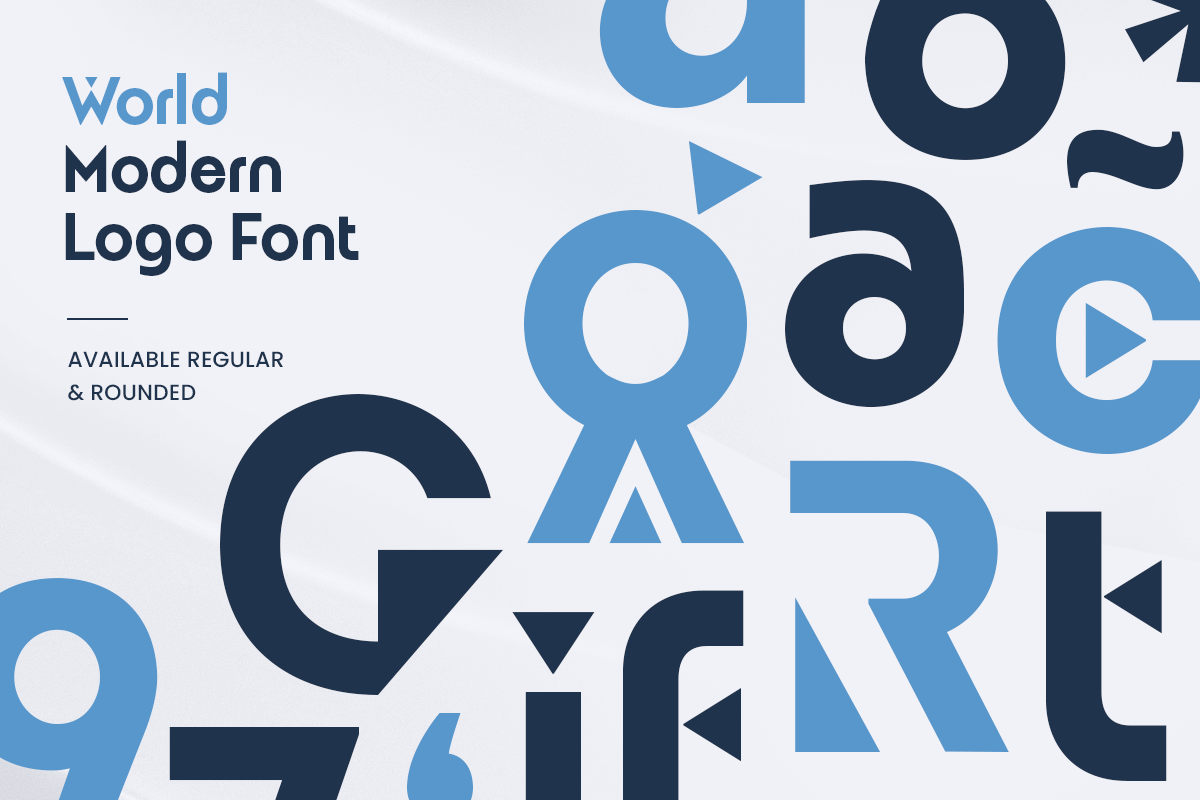
World
-Modern Logo Font
World is a modern logo font that brings sophistication and clarity to any branding project. Its clean lines and versatile design make it a perfect choice for modern businesses, offering a sleek and professional look that’s instantly recognizable. Whether used for logos, headlines, or digital media, World gives brands the confidence of a well-defined and memorable identity.
Inspired by modern aesthetics and a minimalist approach, World fits seamlessly into various design styles. Its crisp character shapes make it an ideal font for those looking to create impactful visuals that stand out across digital and print mediums. With World, achieving a refined and cohesive look for your brand has never been easier.
Perfect for fashion, tech, and lifestyle brands, World’s timeless appeal and adaptability make it a go-to font for forward-thinking designers. Experience a fresh, polished look for your projects with World—a font that brings style and substance together effortlessly.
• Clean and Minimalist Design, Perfect for Mpdern Logo
• Available Standard and Rounded Style